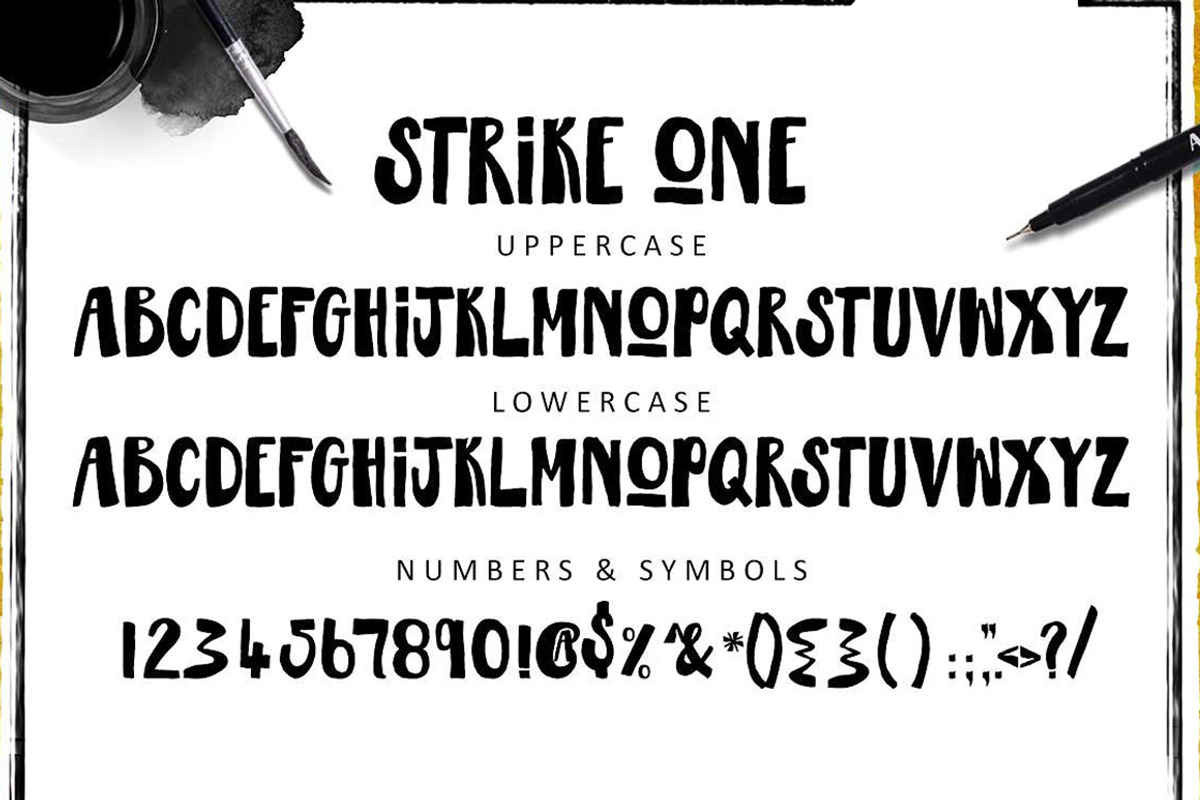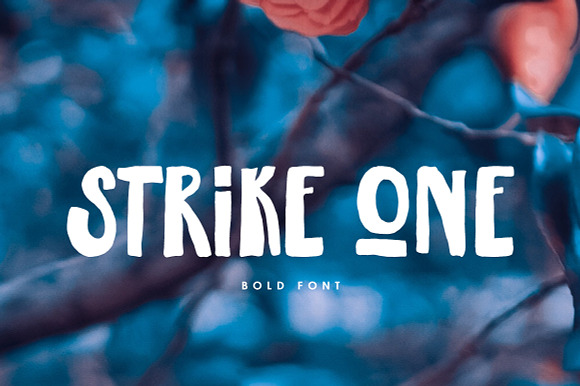
Strike One Font
This is Strike One. A cool hand drawn fat font. This font is part of the Big Bunch of Fonts Volume 2 here
Why Strike One Font is worth a look
Strike One Font by Creativeqube Design fits naturally into Branding, posters, packaging, typography.